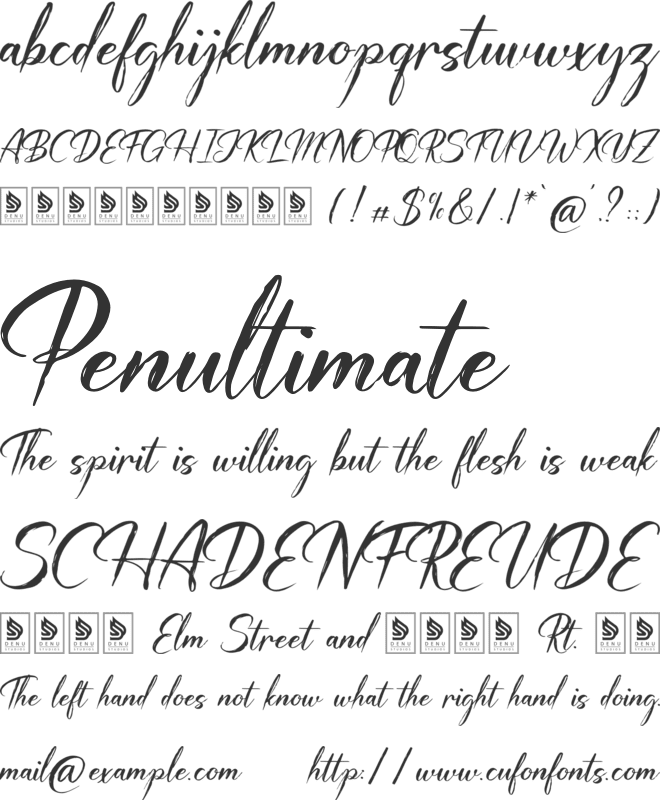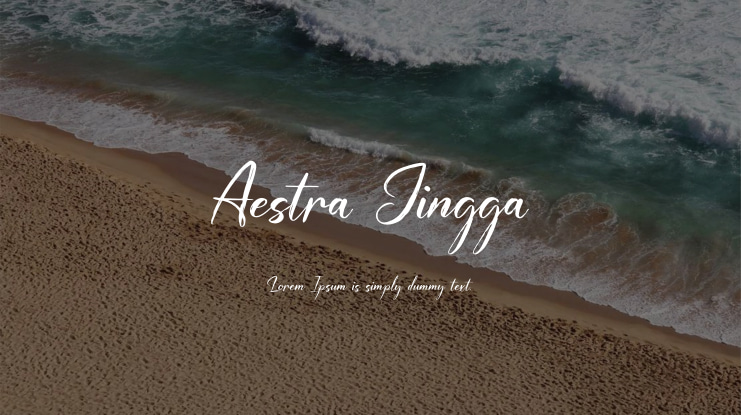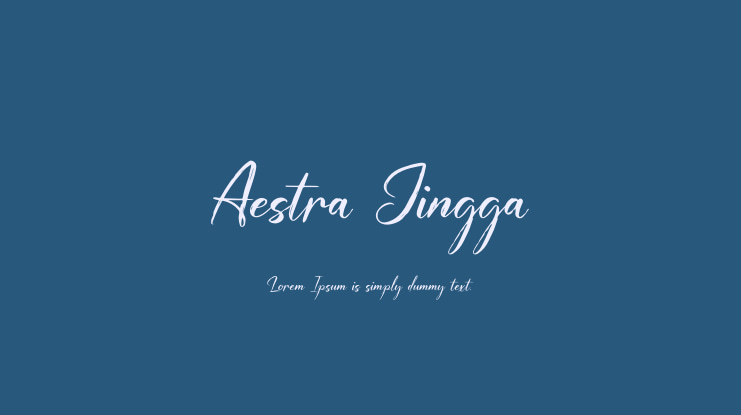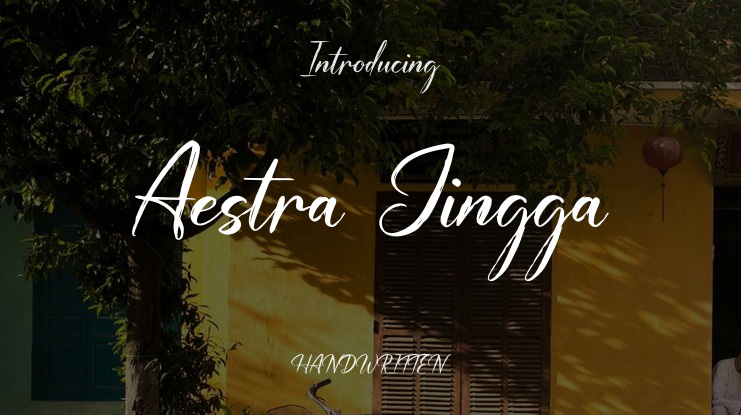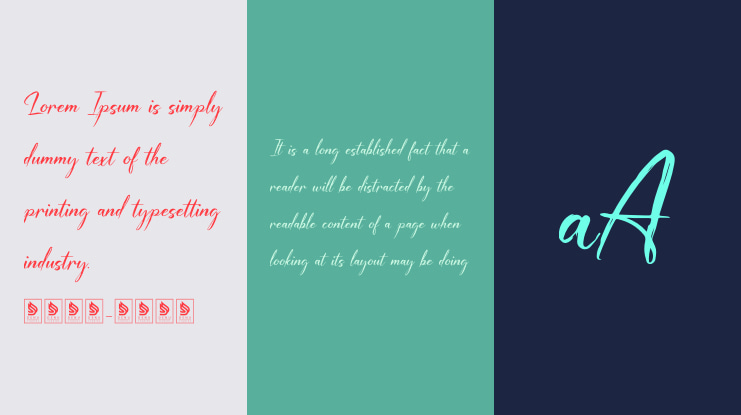
Dede Nugraha
Aestra Jingga | Handwritten Script is a versatile font suitable for various projects such as logos, branding, homeware designs, product packaging, quotes, posters, apparel, book covers, name cards, invitations, greeting cards, labels, photography, watermarks, special events, and more that require an elegant script style.